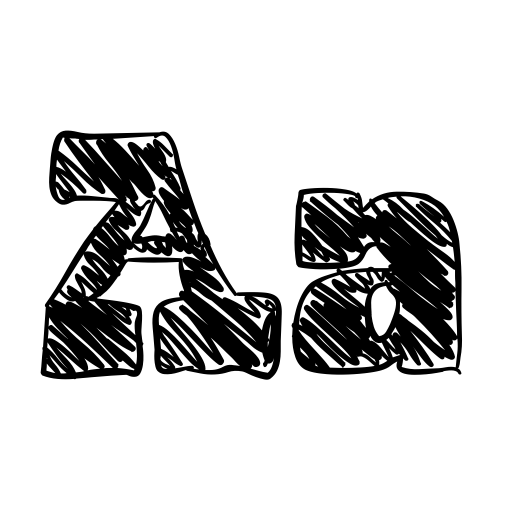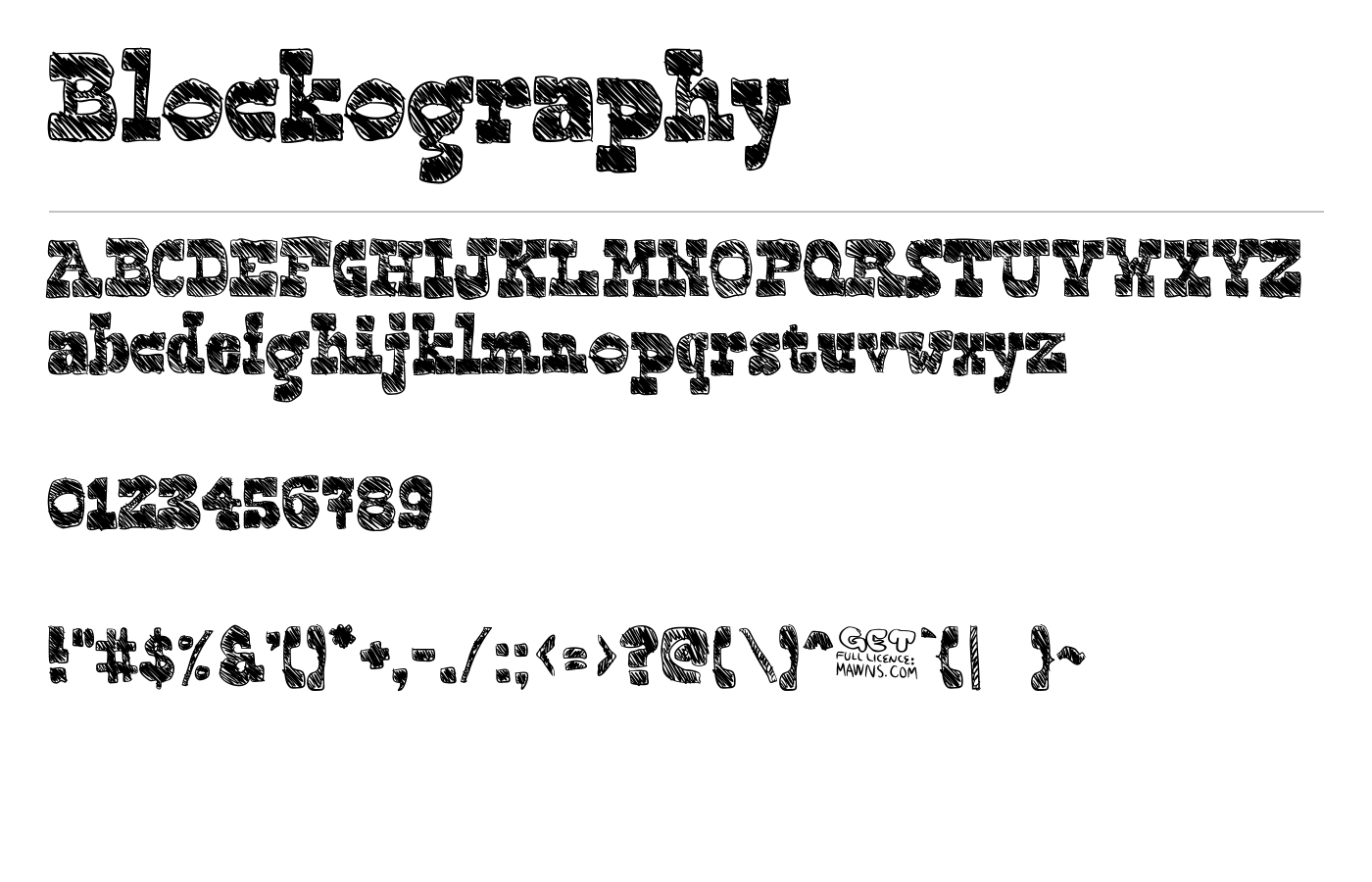
Blockography is a bold slab serif font with a playful, hand-drawn texture that gives it a rugged, sketch-like appearance. Its heavy weight, strong serifs, and uneven shading convey a casual yet impactful personality, making it great for creative projects that need a distinctive, handcrafted vibe. This font works well for eye-catching headlines, posters, and branding where a fun, artistic touch is desired.
Blockography Font
About Blockography Font